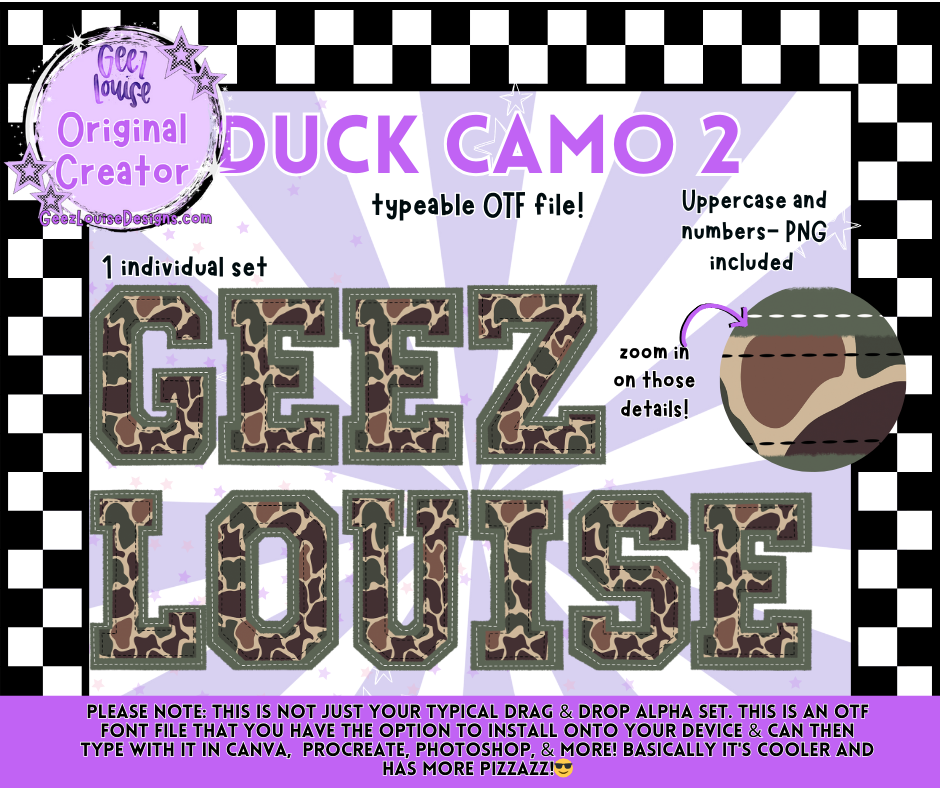
Duck Camo #2— Typeable OTF Font + PNG
Stitched camo with attitude. Duck Camo 2 brings a rugged edge to your type game. Think stitched borders, duck camo chaos, and uppercase letters that look like they’ve been through something.
Why It Slaps:
• Great for grunge drops, mascot mockups, and seasonal snark
• Textured enough to feel handmade, bold enough to scream